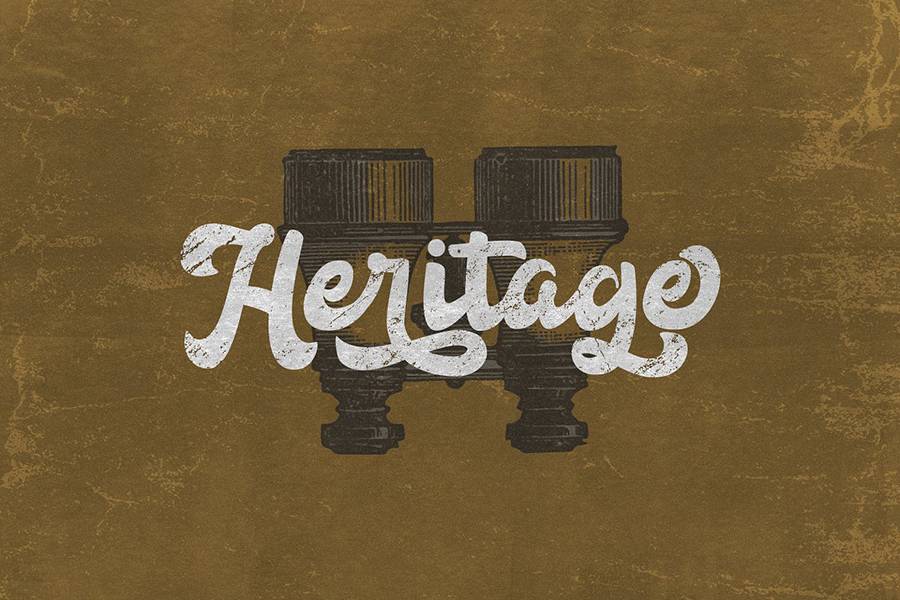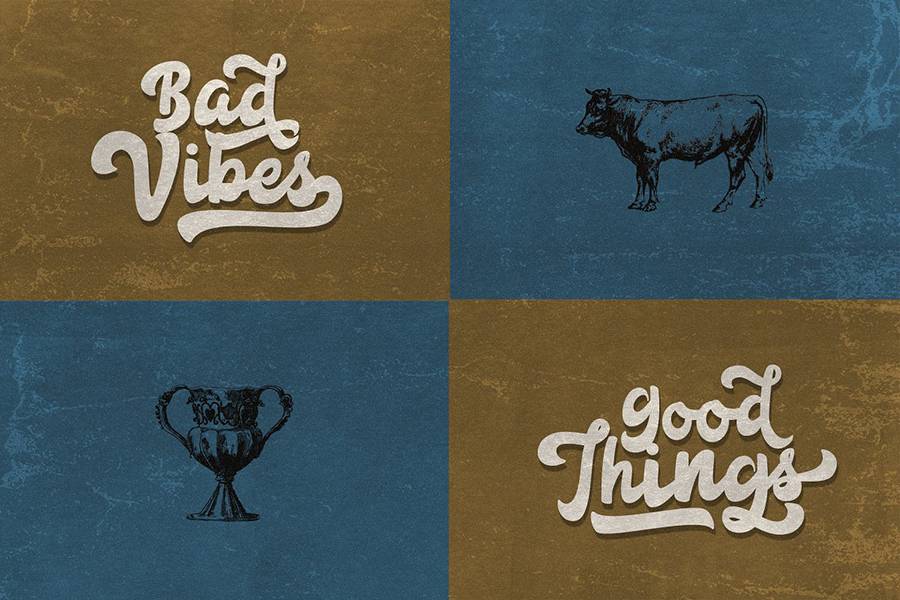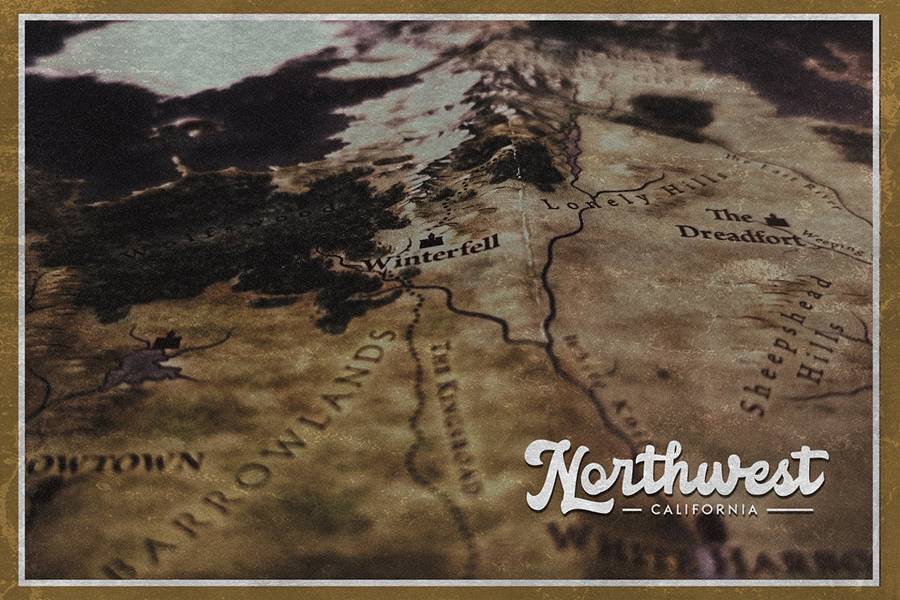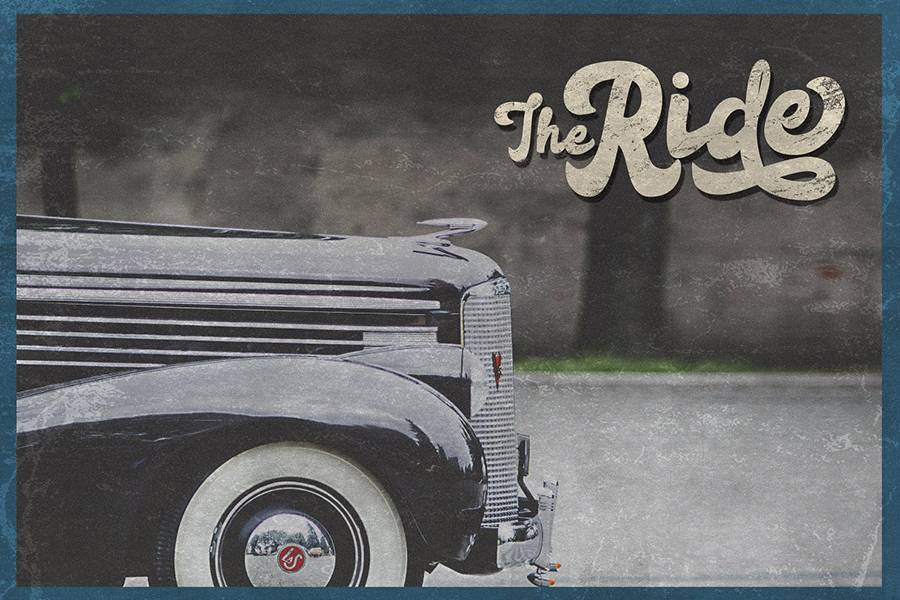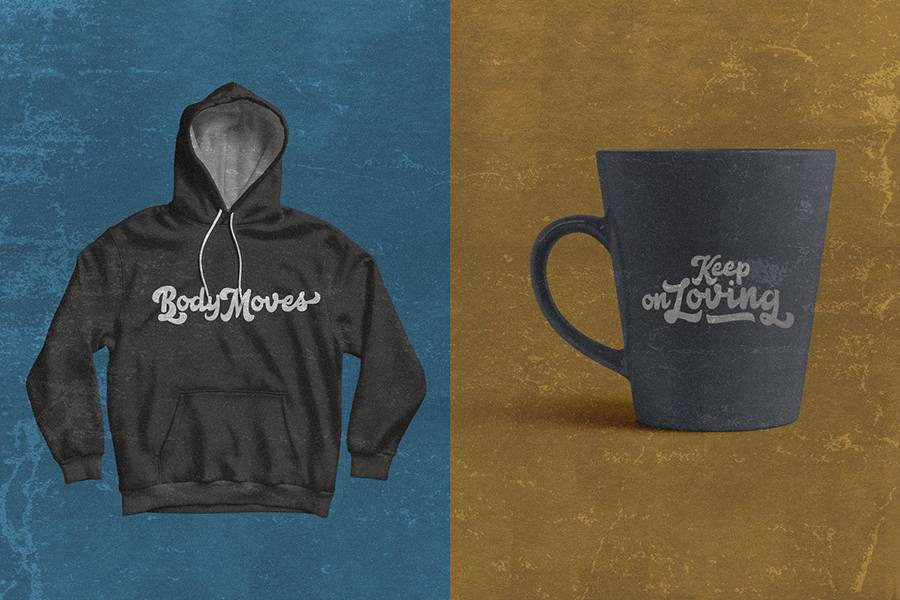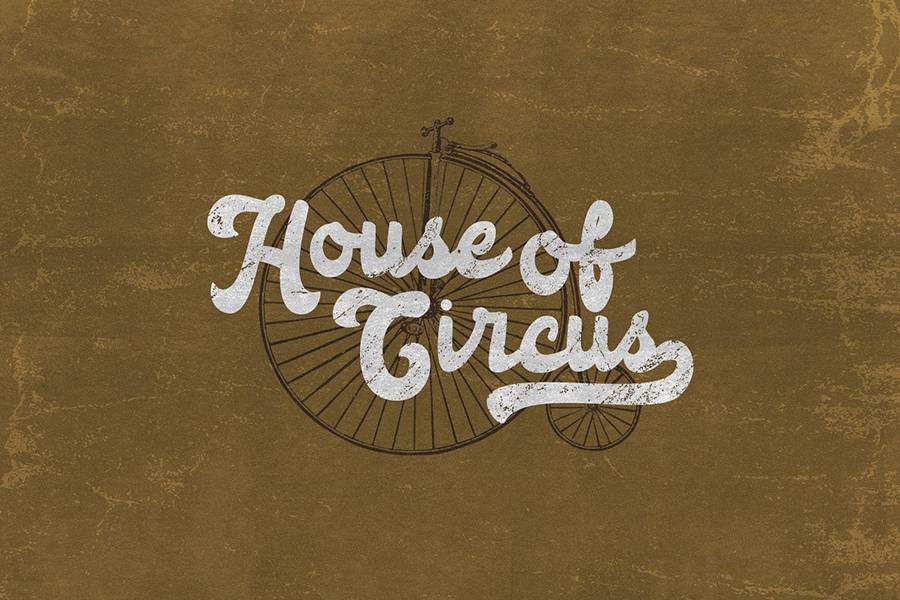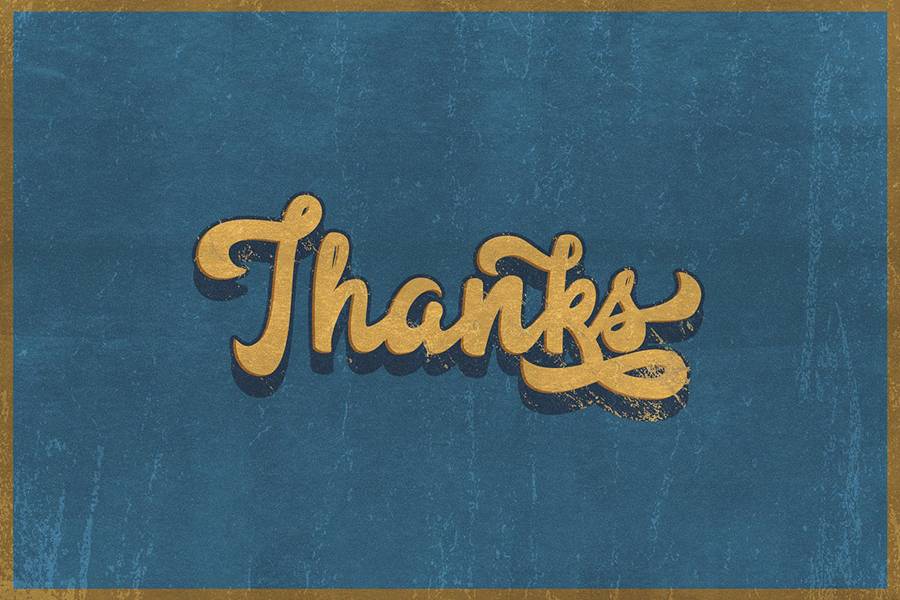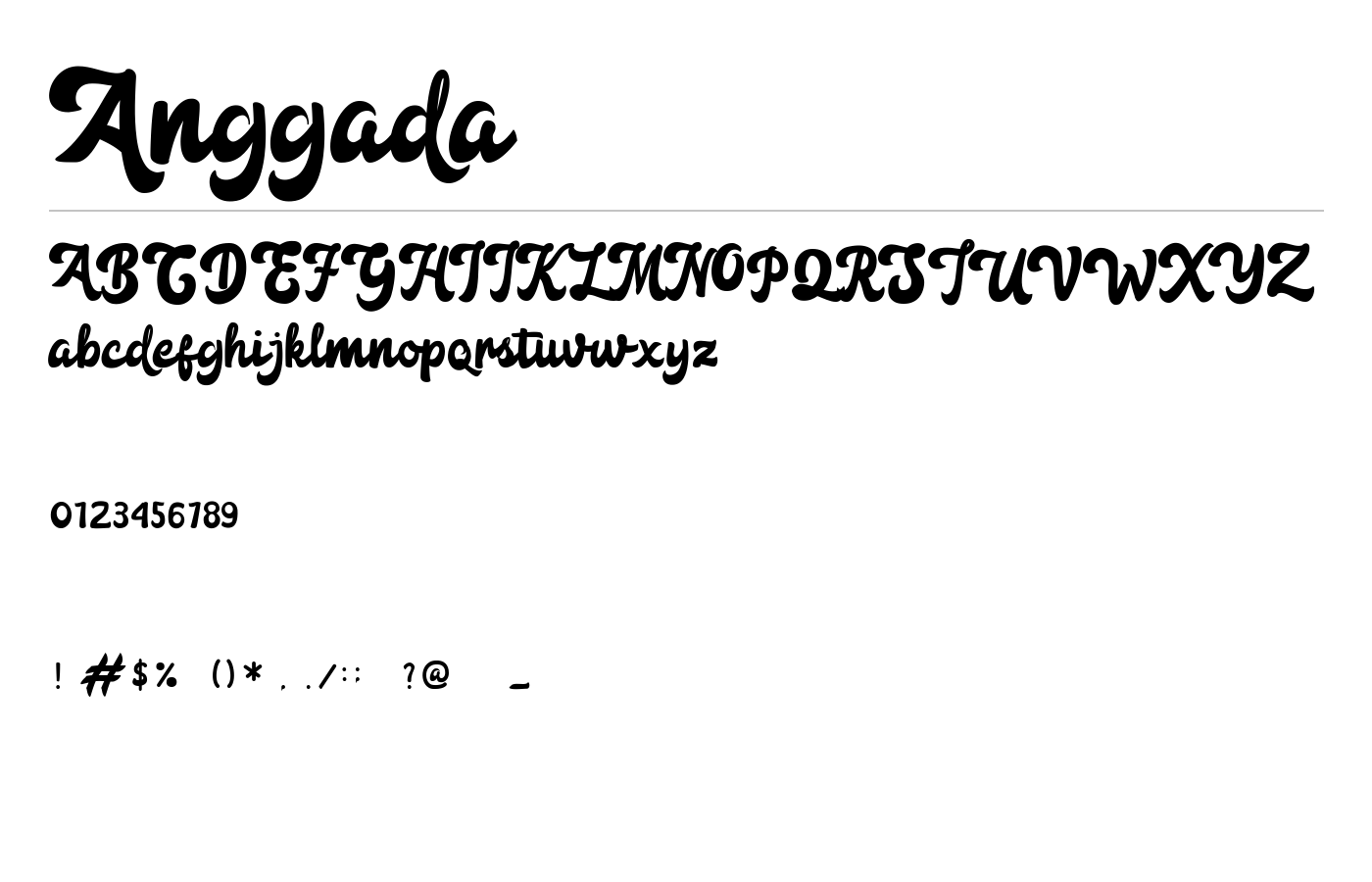
Anggada Vintage Script Demo is a bold, playful script font with a strong retro vibe, featuring thick, smooth strokes and rounded edges that give it a friendly and approachable feel. Its distinctive cursive forms and moderate contrast make it perfect for vintage branding, logos, packaging, and headlines that want to evoke warmth and personality. This font works well in creative, nostalgic, or casual contexts where a lively, handcrafted touch is desired.
Anggada Vintage Script Demo Font
About Anggada Vintage Script Demo Font
| Font family | Anggada Vintage Script Demo Font |
| Designer | inspiratype |